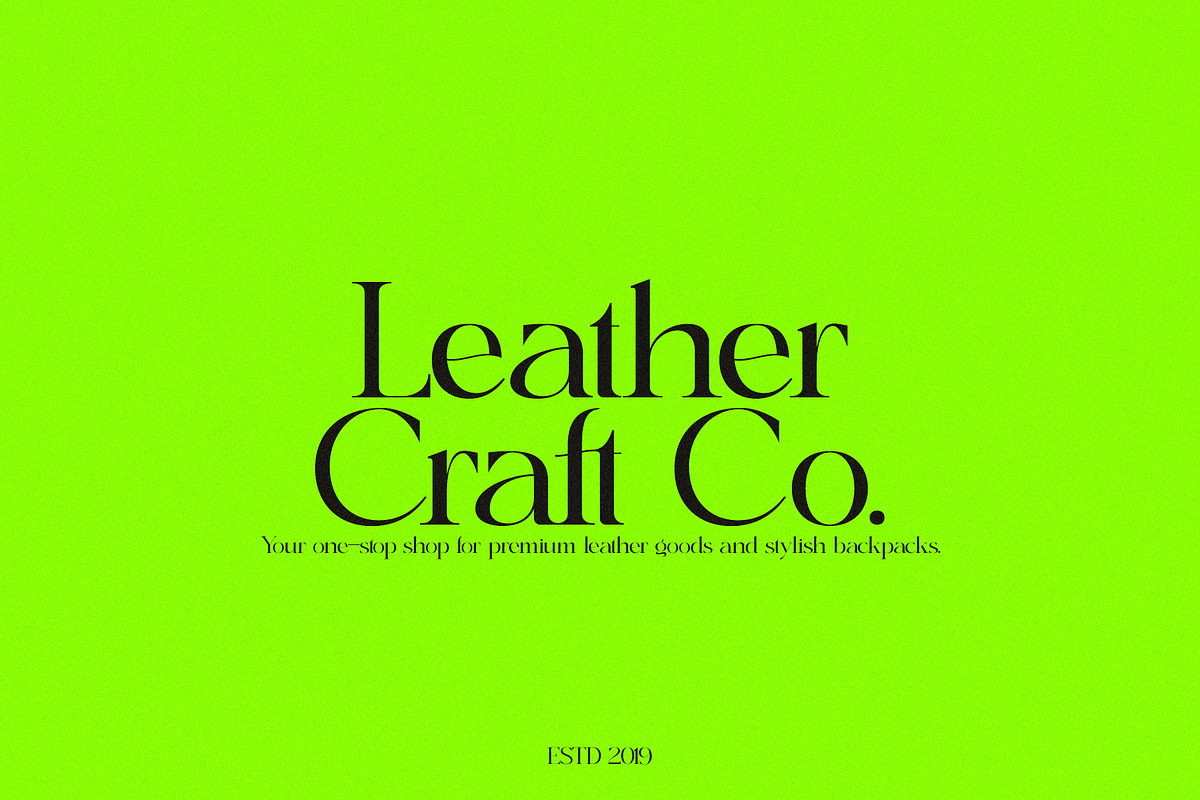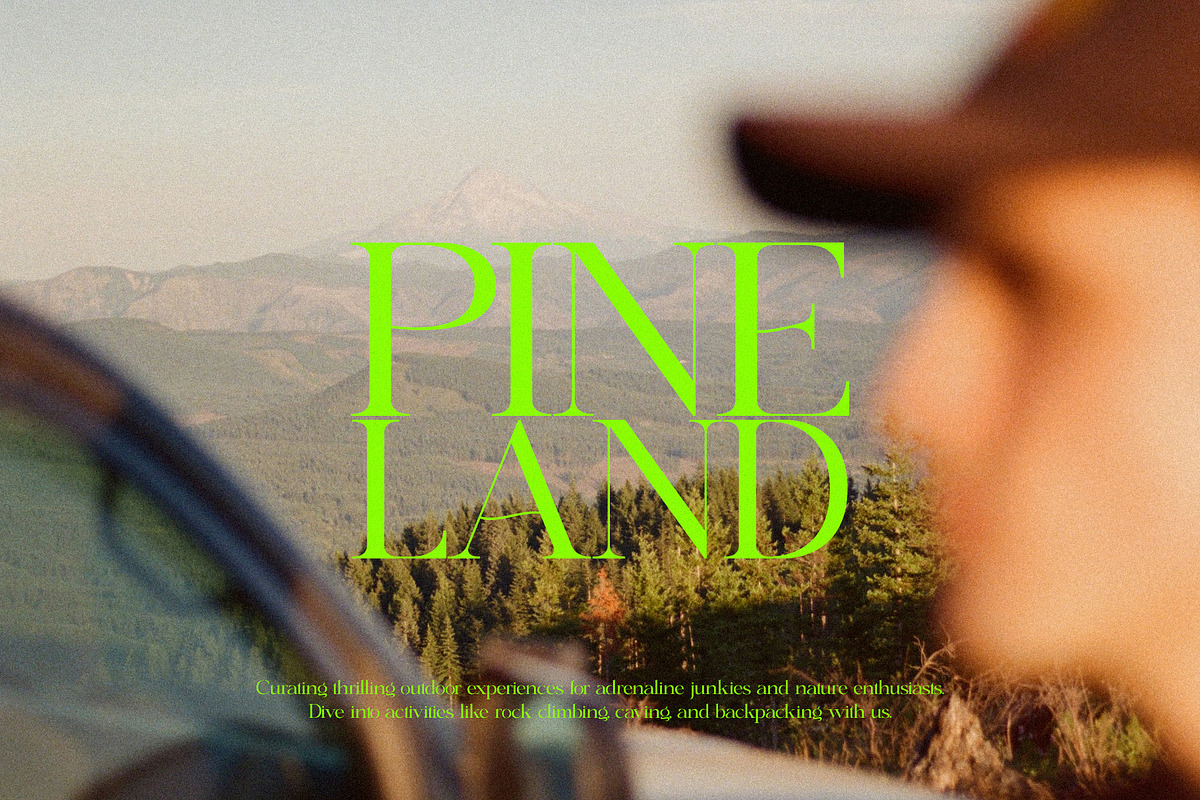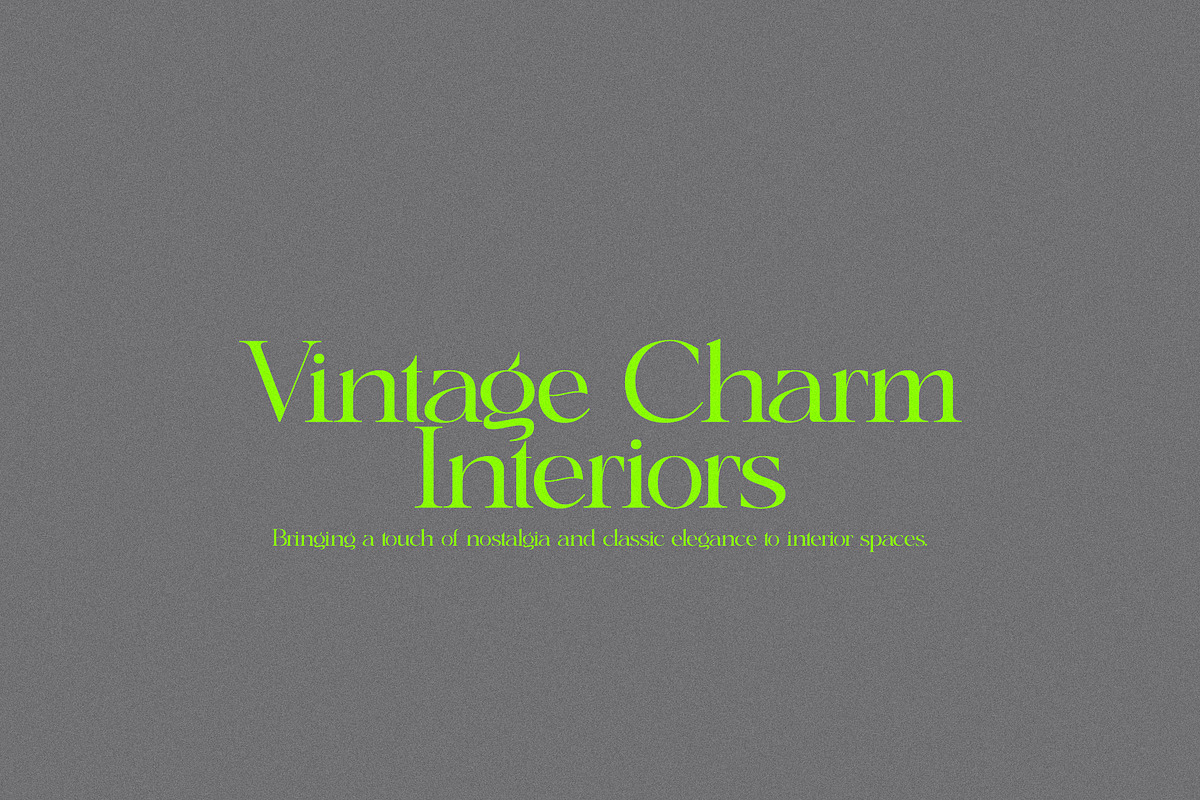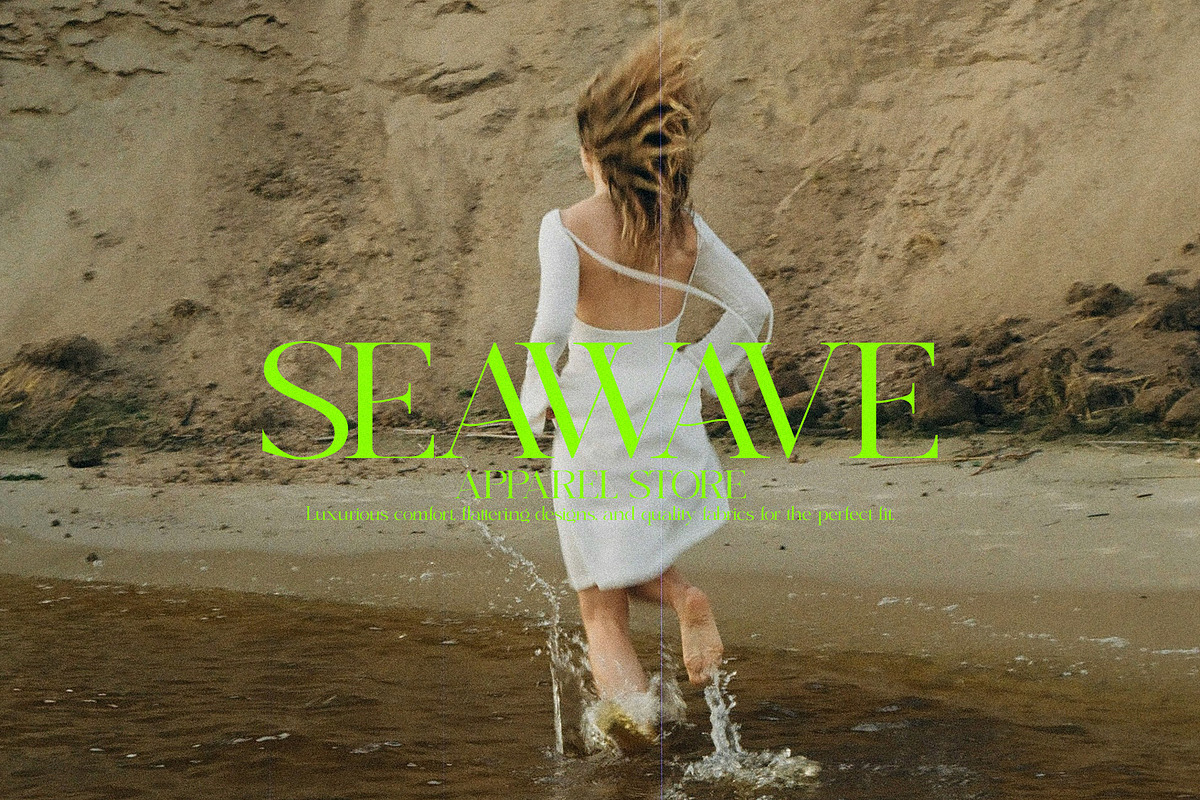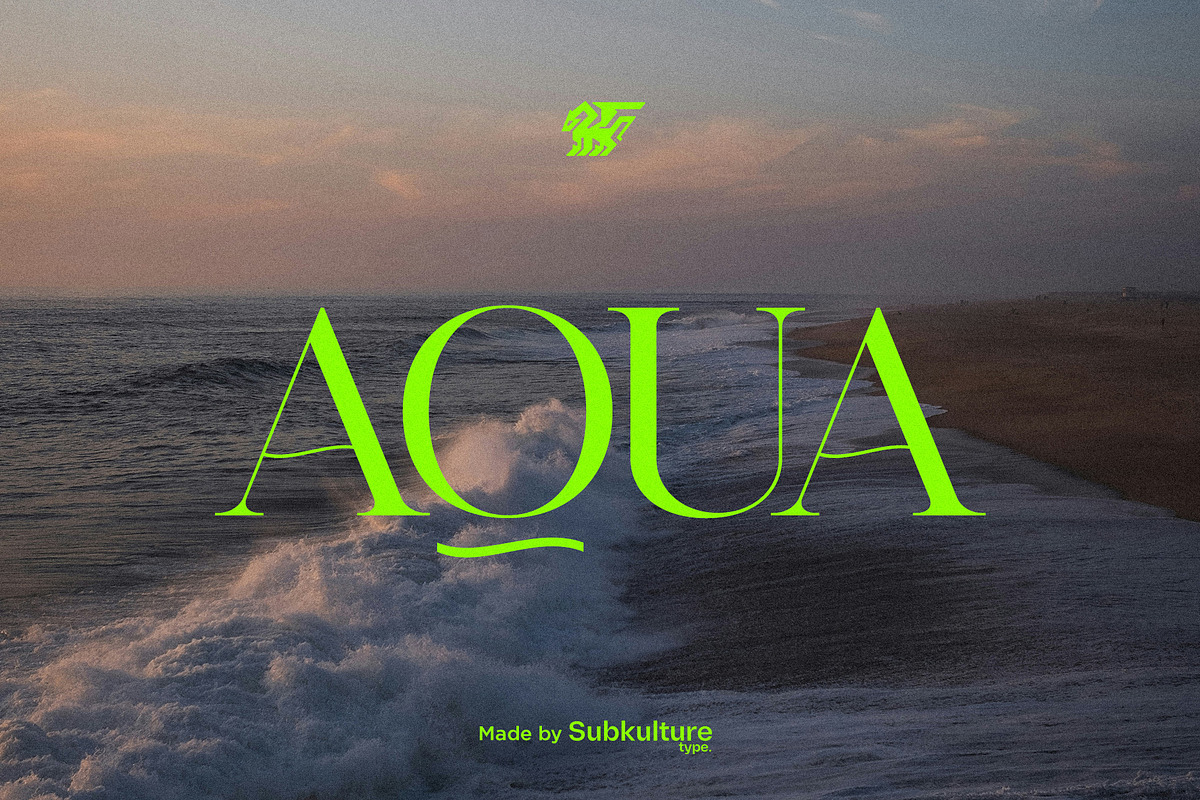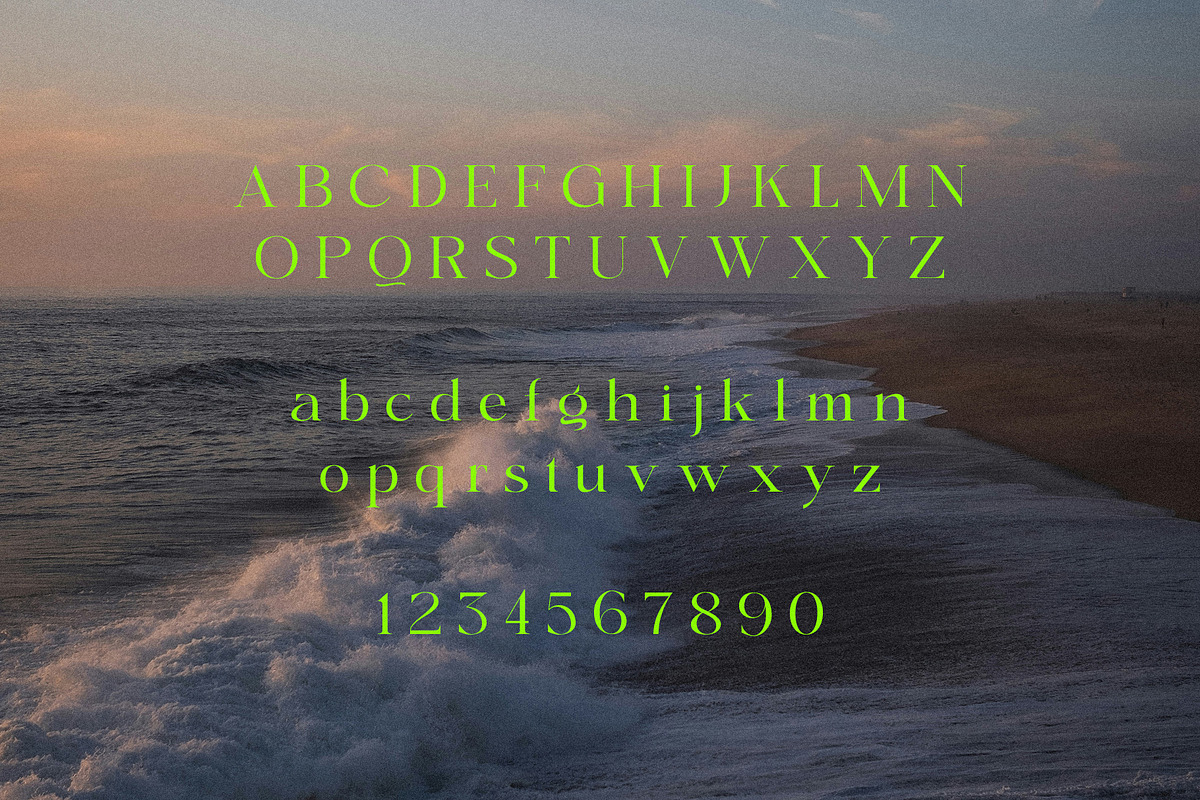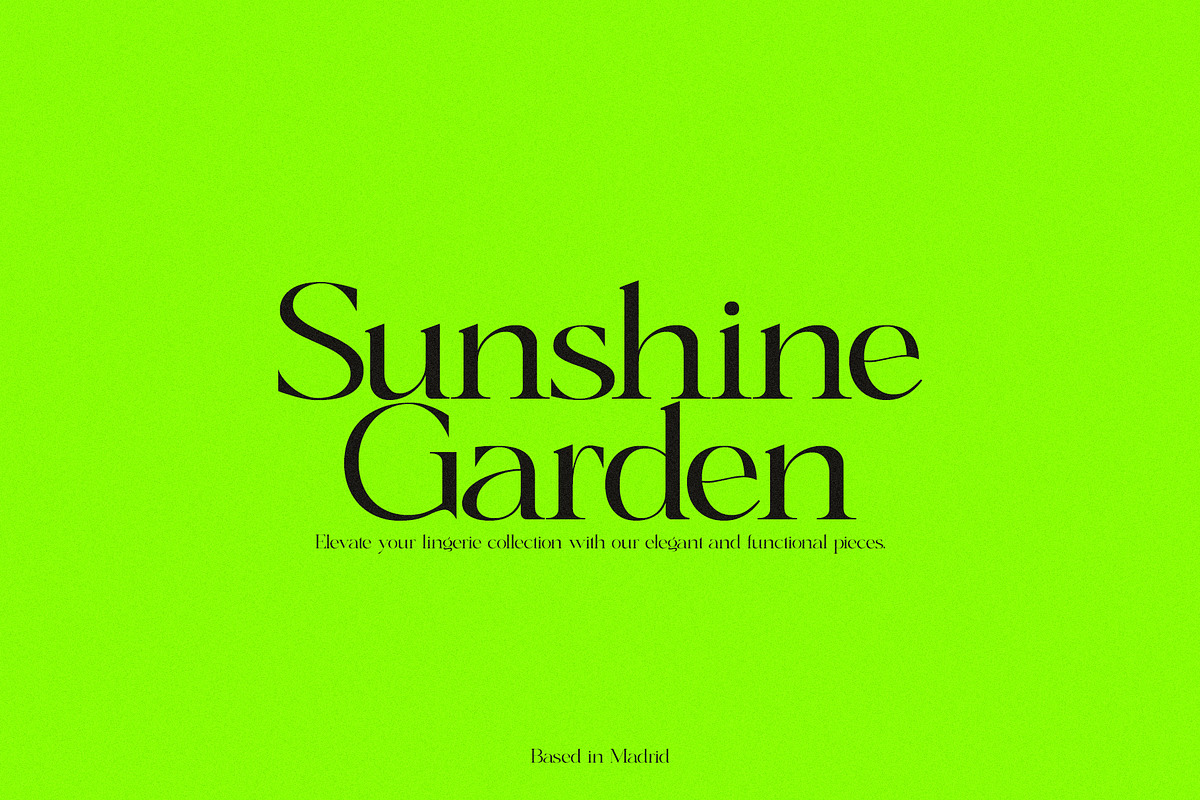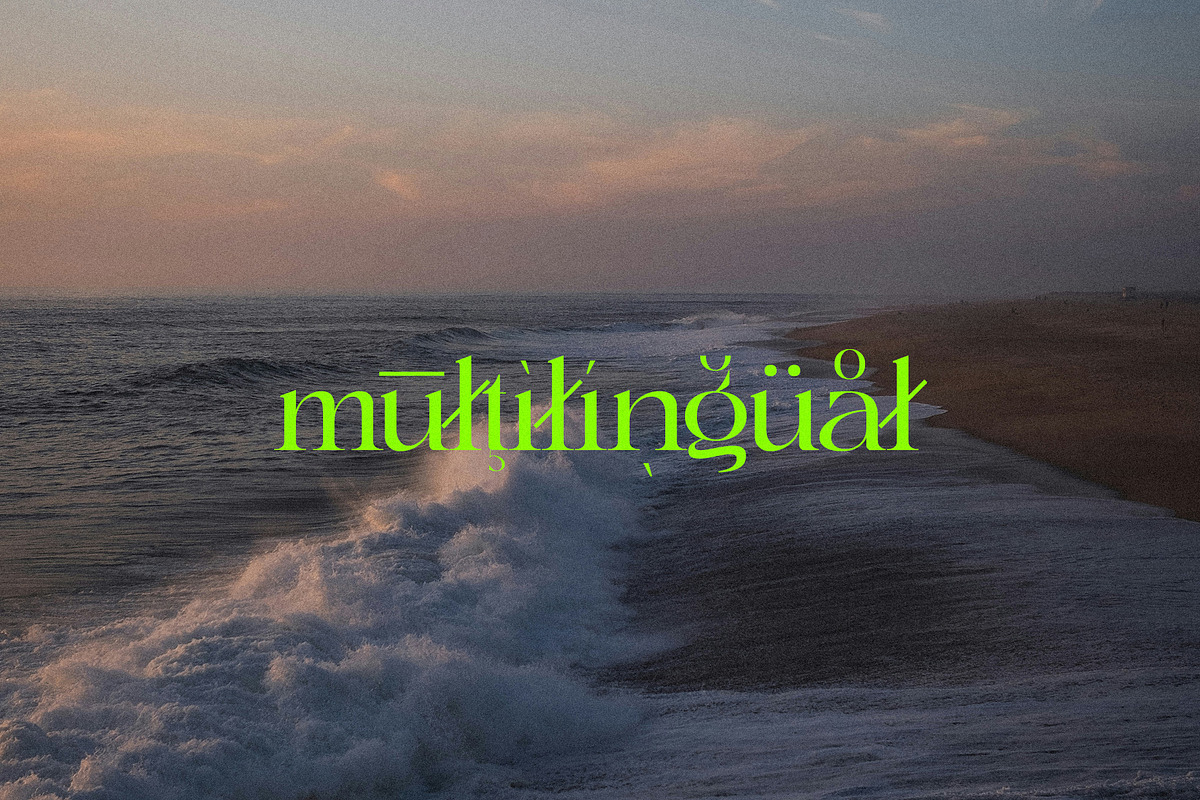
AQUA - Unique Serif
AQUA - Unique Serif is a modern and stylish serif font that stands out with its distinctive design. With clean lines and elegant curves, AQUA is perfect for adding a touch of sophistication to any project. Its versatility makes it suitable for a wide range of applications, from branding to editorial design. Elevate your designs with AQUA - Unique Serif font today.
AQUA features uppercase & lowercase letters, numbers & symbols, multilingual support, over 250+ glyphs.